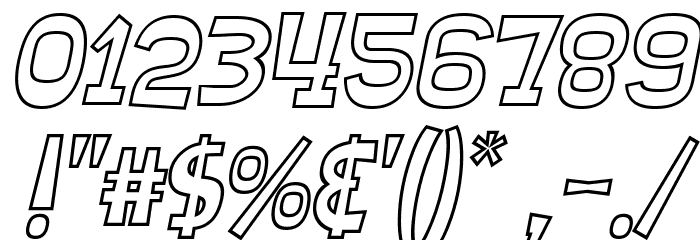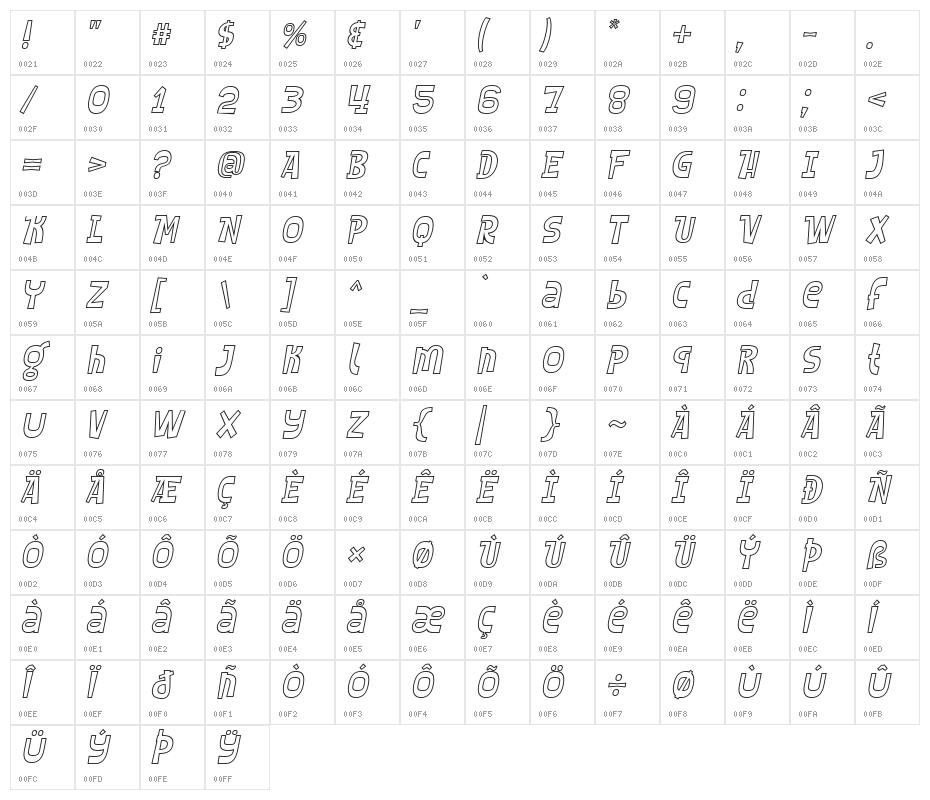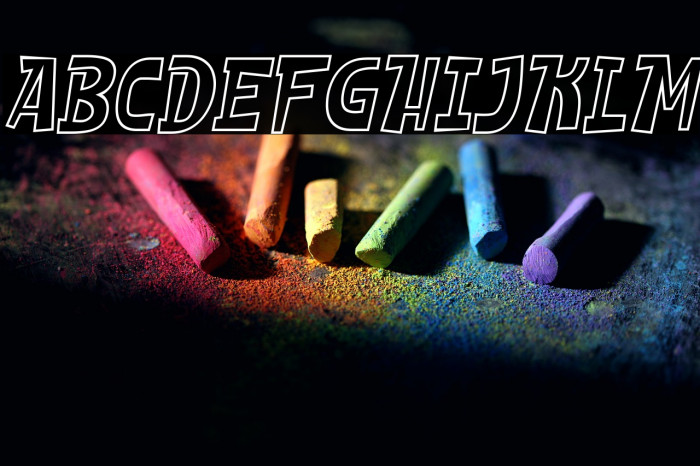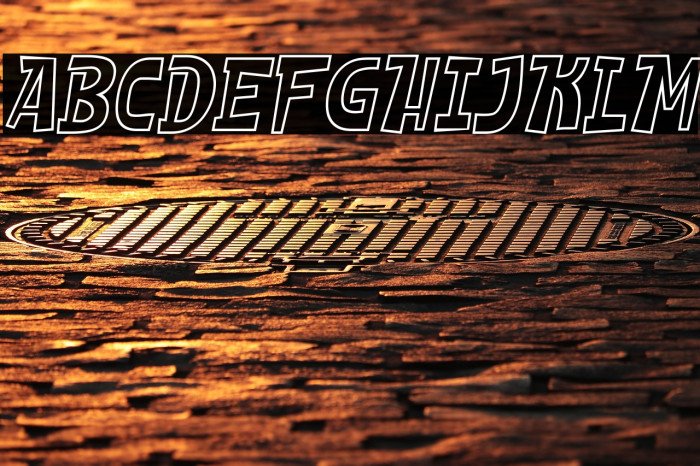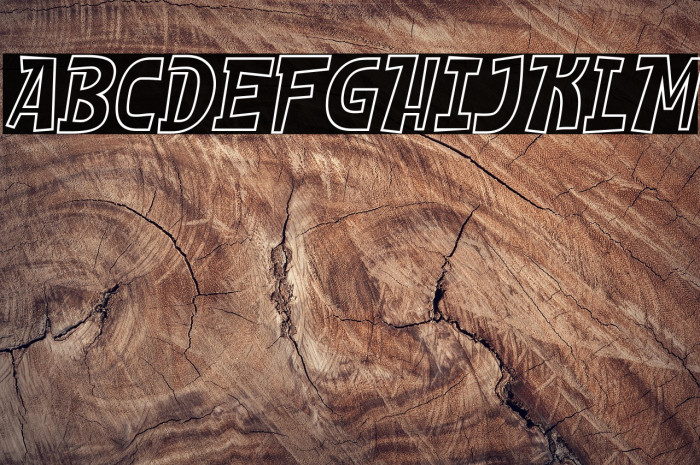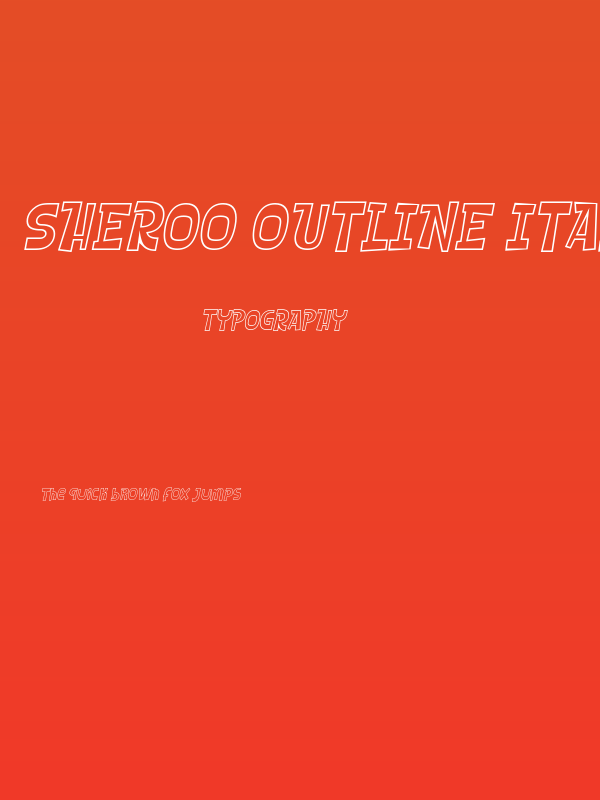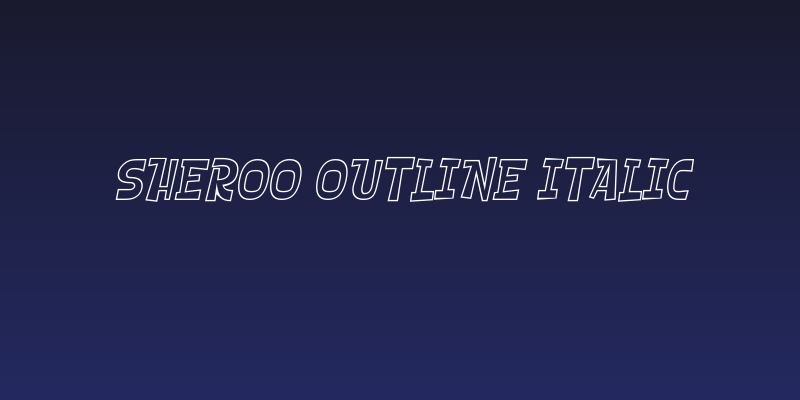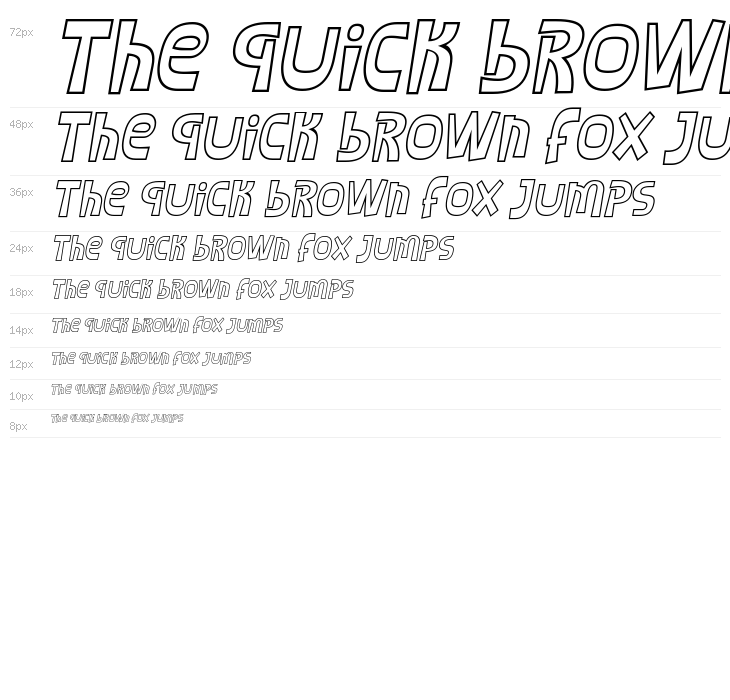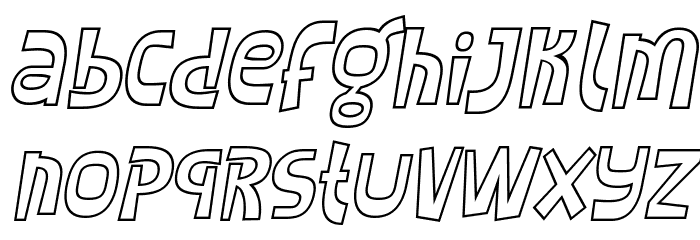
SHEROO Outline Italic Font
SHEROO Outline Italic Description
This font features a bold, outlined style with a distinct italic slant, giving it a dynamic and modern appearance. The uppercase and lowercase letters maintain a consistent outline thickness, creating a cohesive look across the alphabet. The numerals and special characters follow the same design principles, ensuring uniformity. The font's geometric shapes and clean lines make it suitable for eye-catching designs. Its outlined nature allows for creative use of color and layering in graphic design projects.